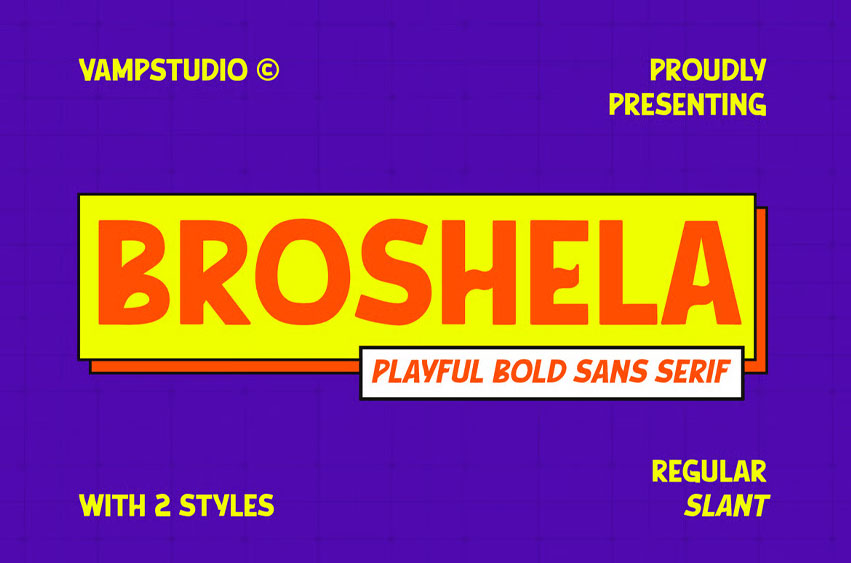
Broshela Font is a bold modern display sans serif font designed to create strong visual impact. Its thick letterforms and clean geometric shapes give your designs a powerful and contemporary look.
Perfect for headlines, posters, branding, packaging, and editorial design, Broshela delivers bold typography that stands out in both print and digital media.
The strong structure and balanced spacing make this font highly readable while maintaining a distinctive personality that fits modern creative trends.
Whether you’re designing posters, logos, or social media graphics, Broshela helps your typography make a bold statement.
• Uppercase & lowercase
• Bold Display Style
• Perfect for Large Typography